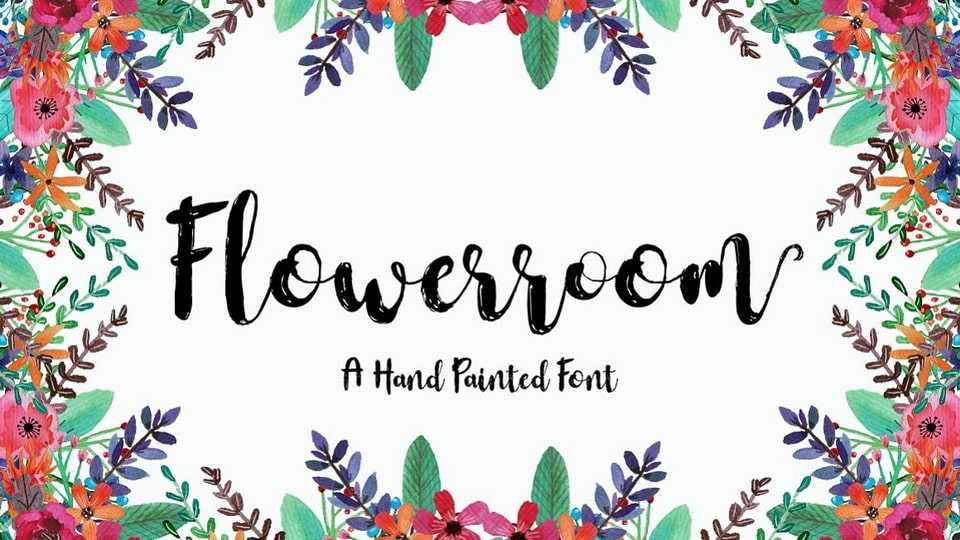
Download Flowerroom font, an enchanting handwritten script. This versatile script font has a wide spectrum of applications ranging from greeting cards to headlines and is guaranteed to add a romantic feel to your next project.